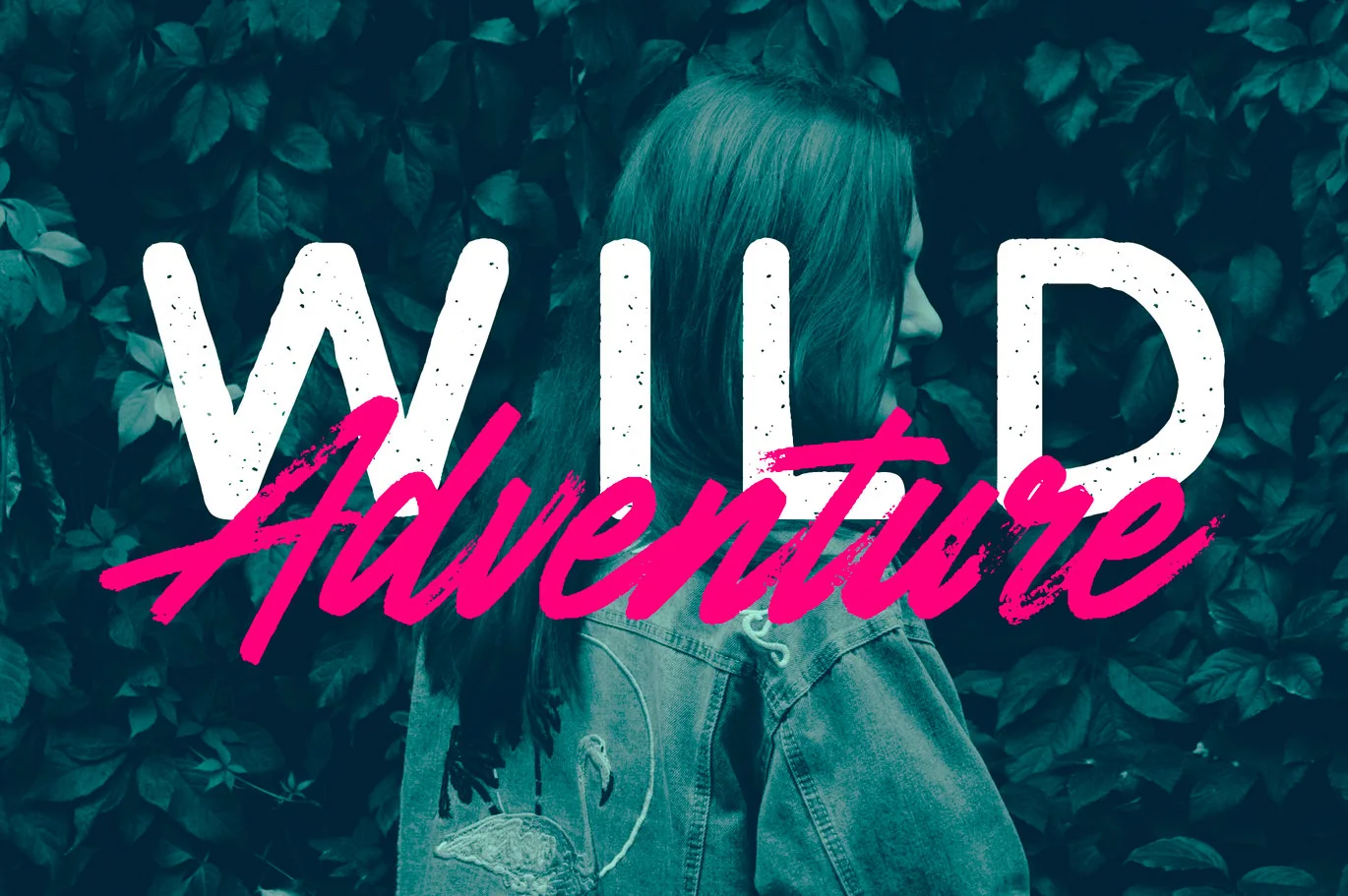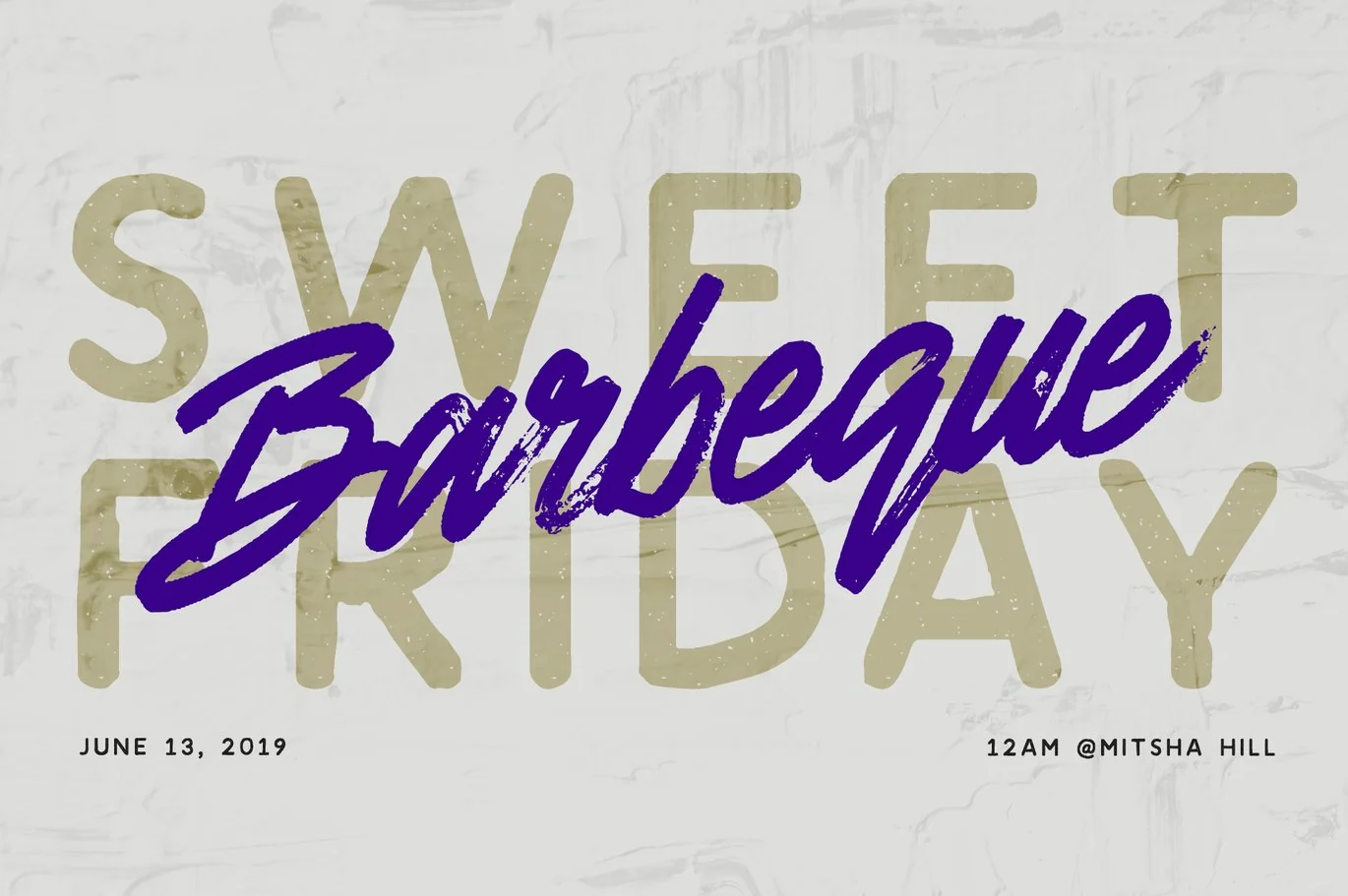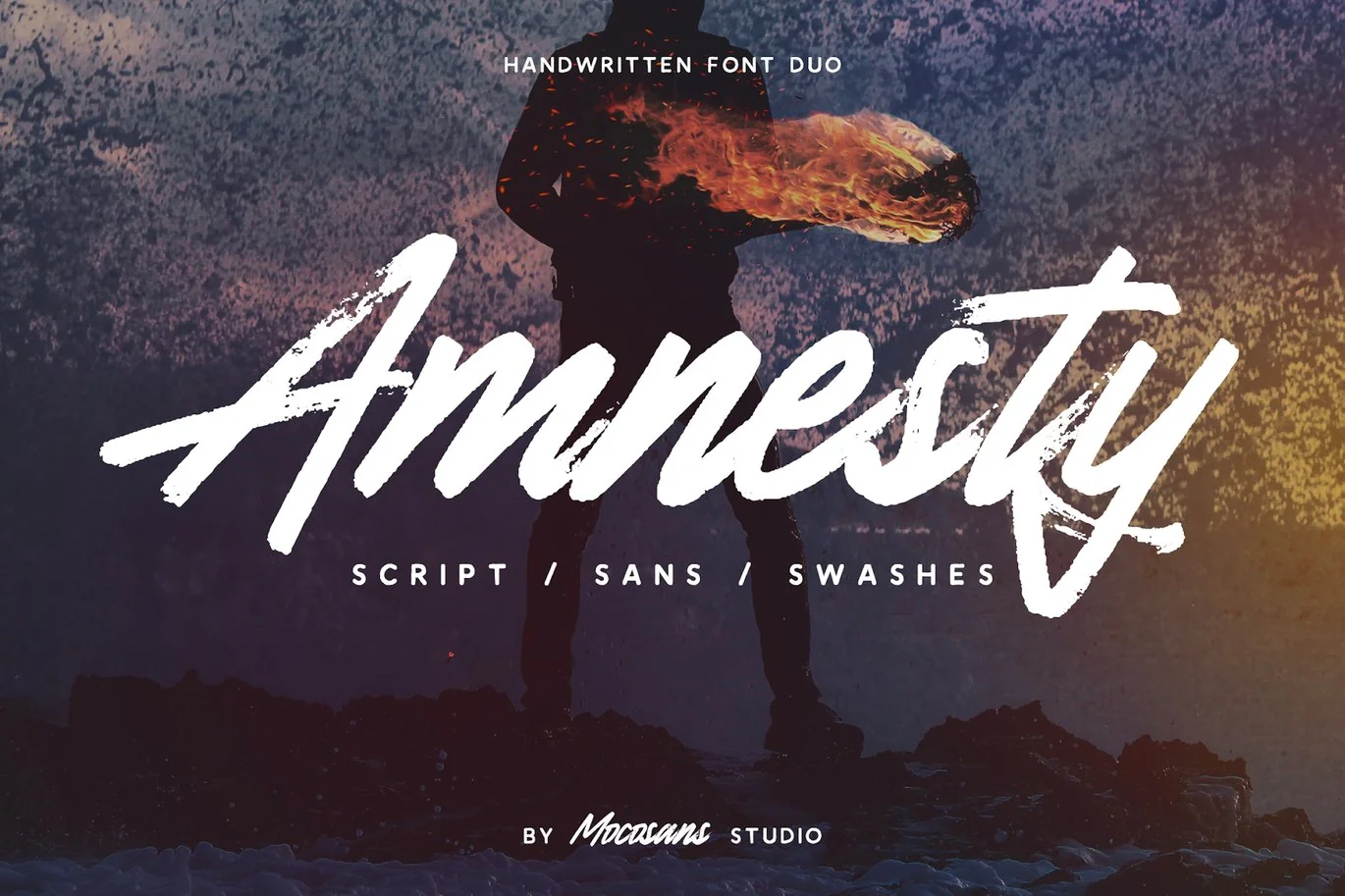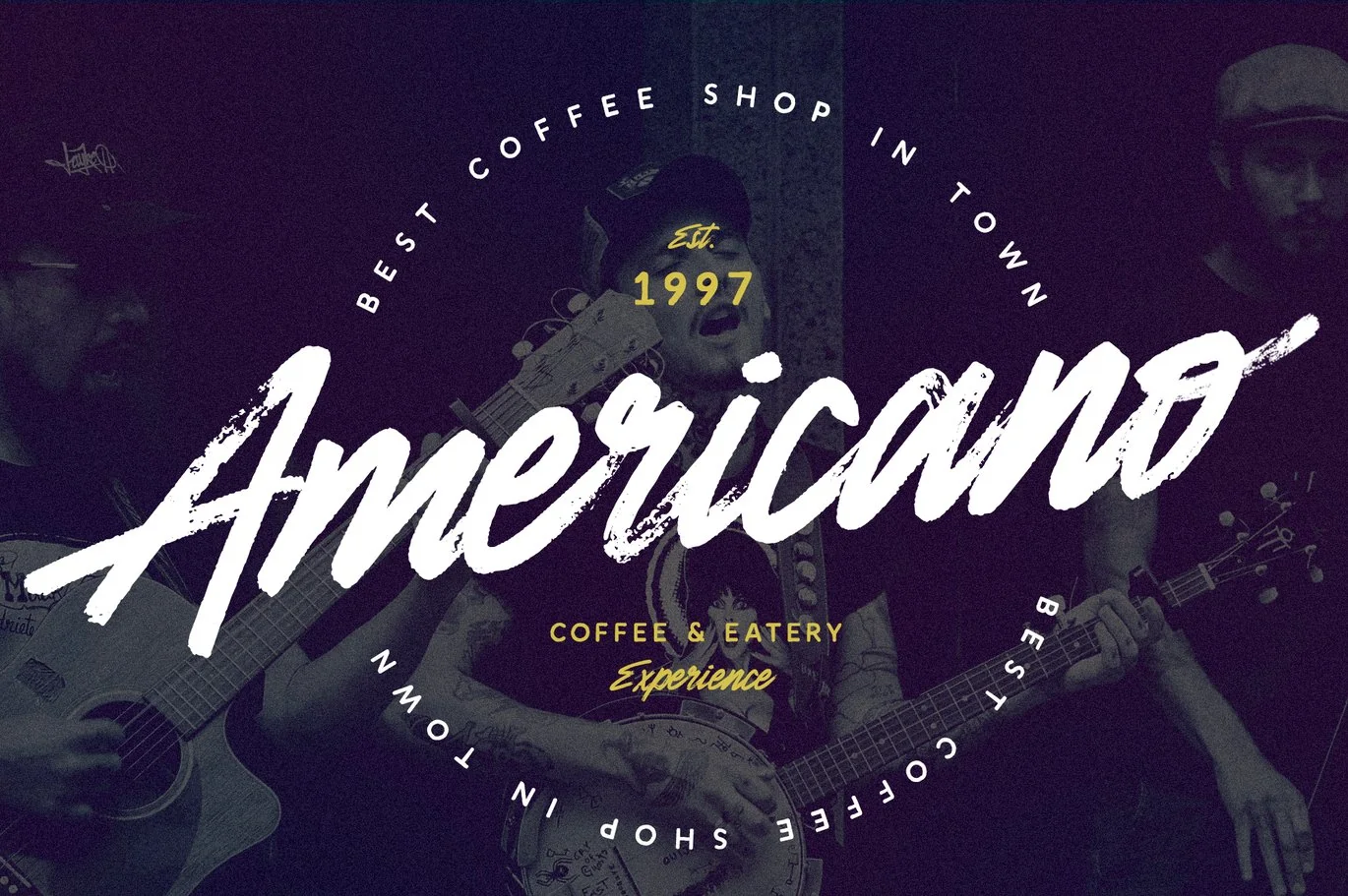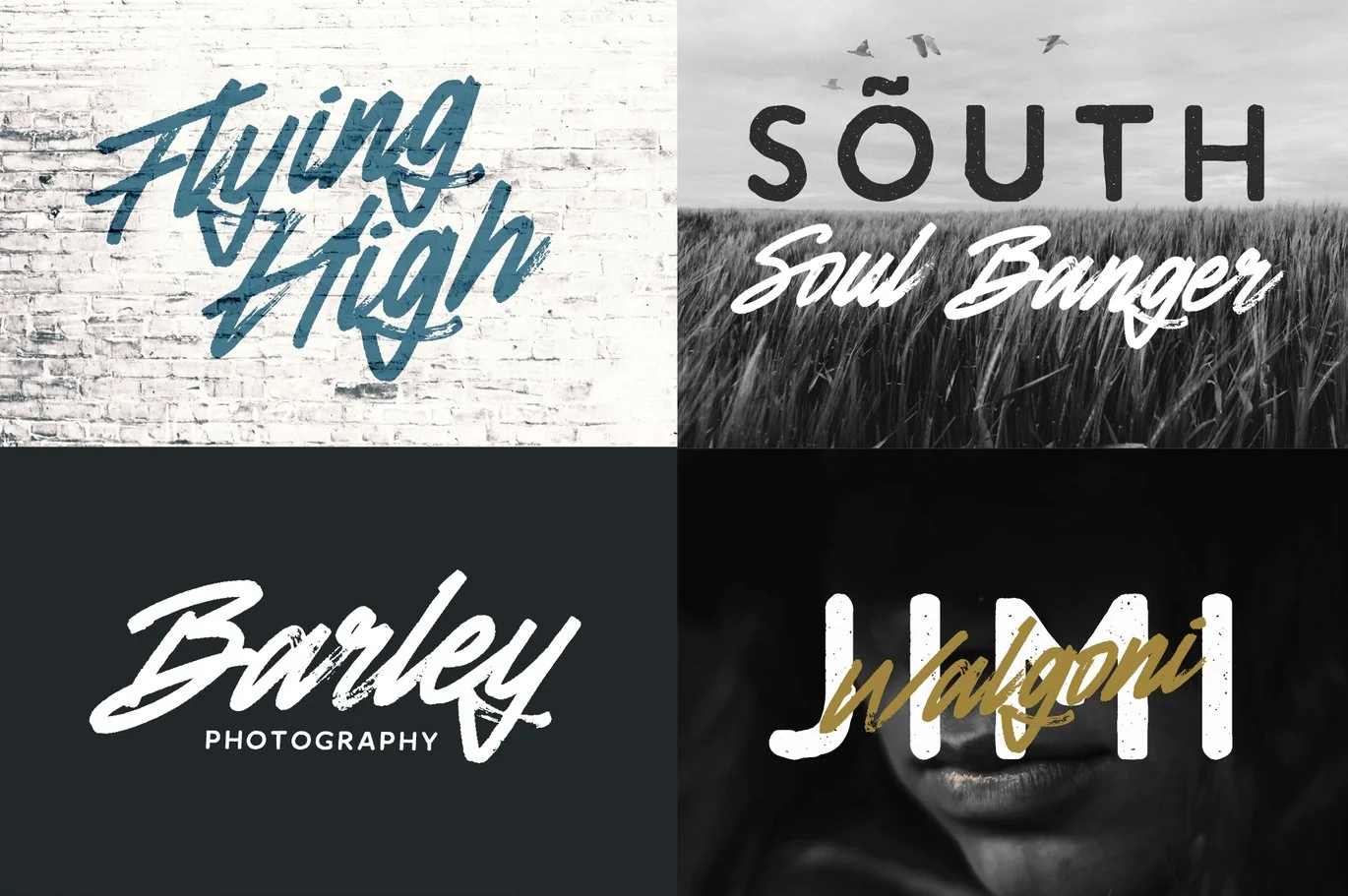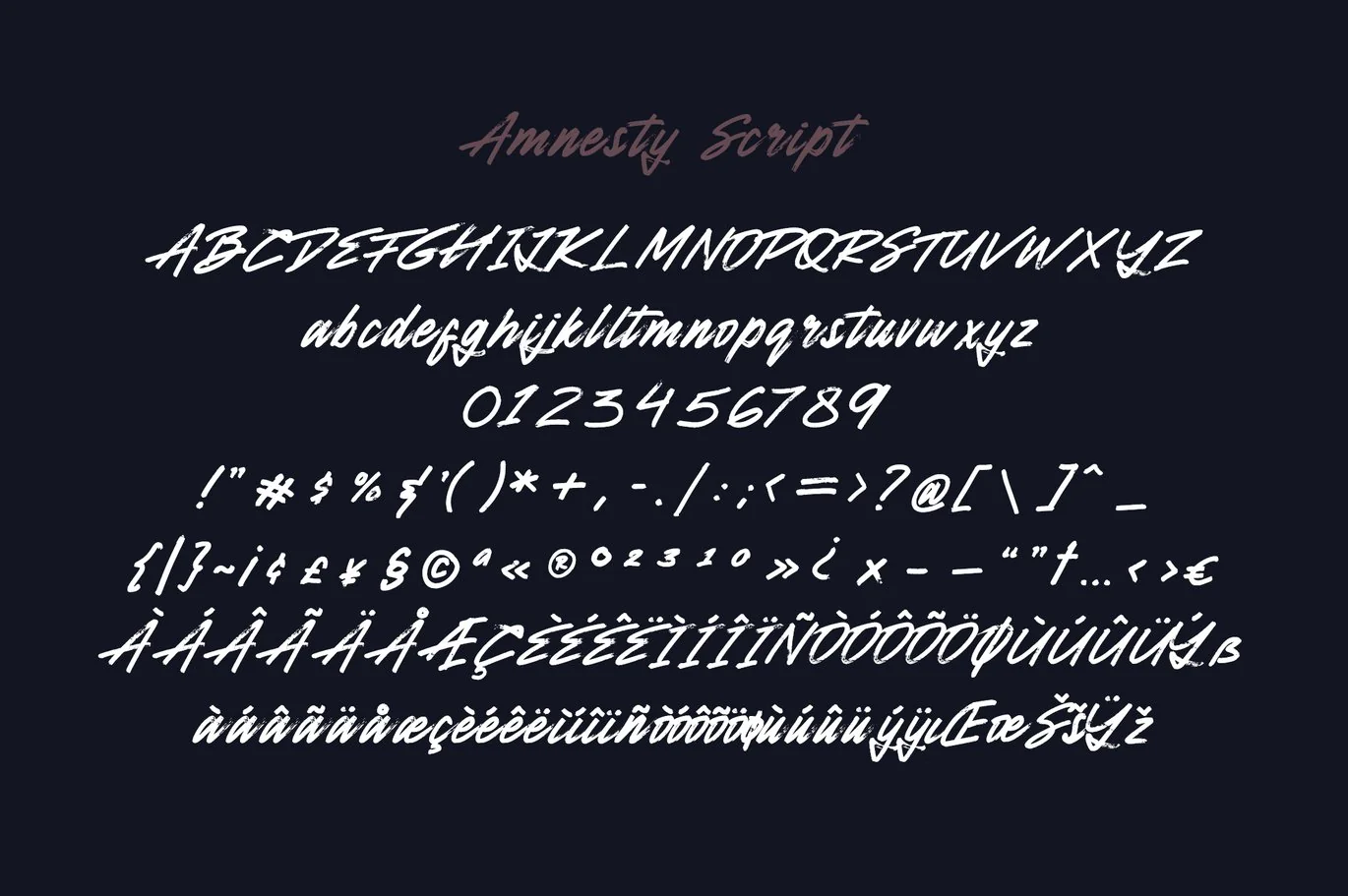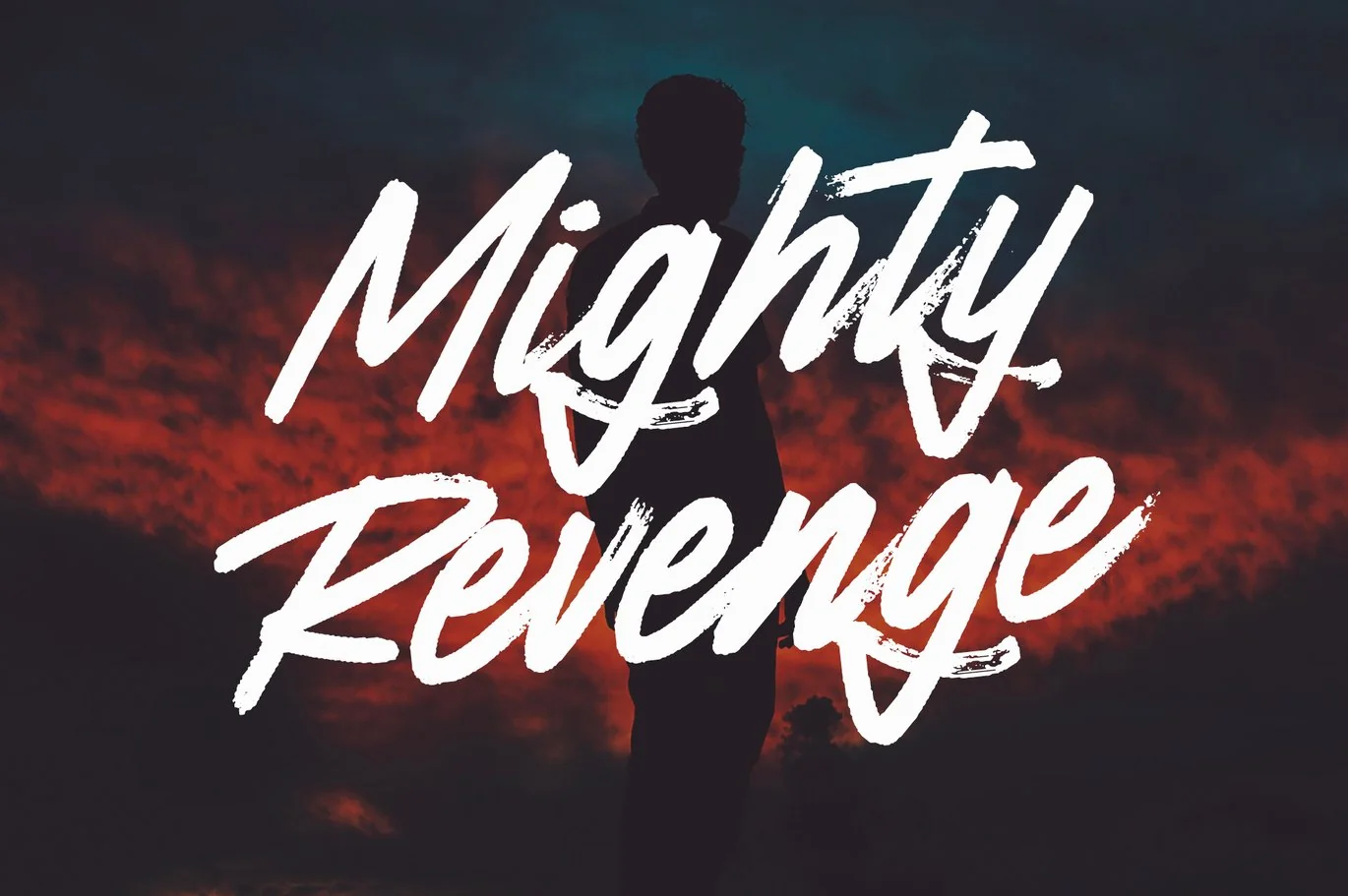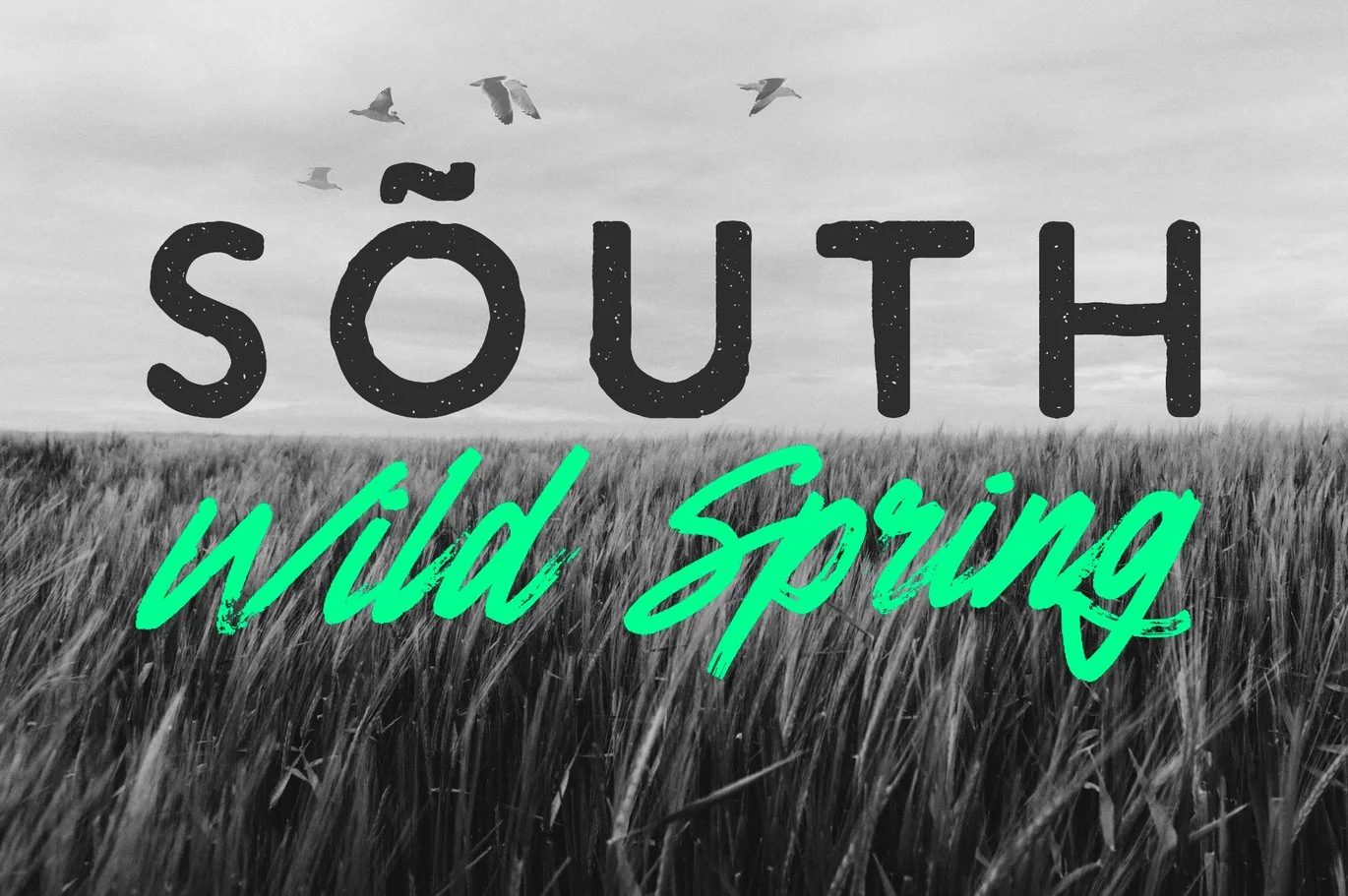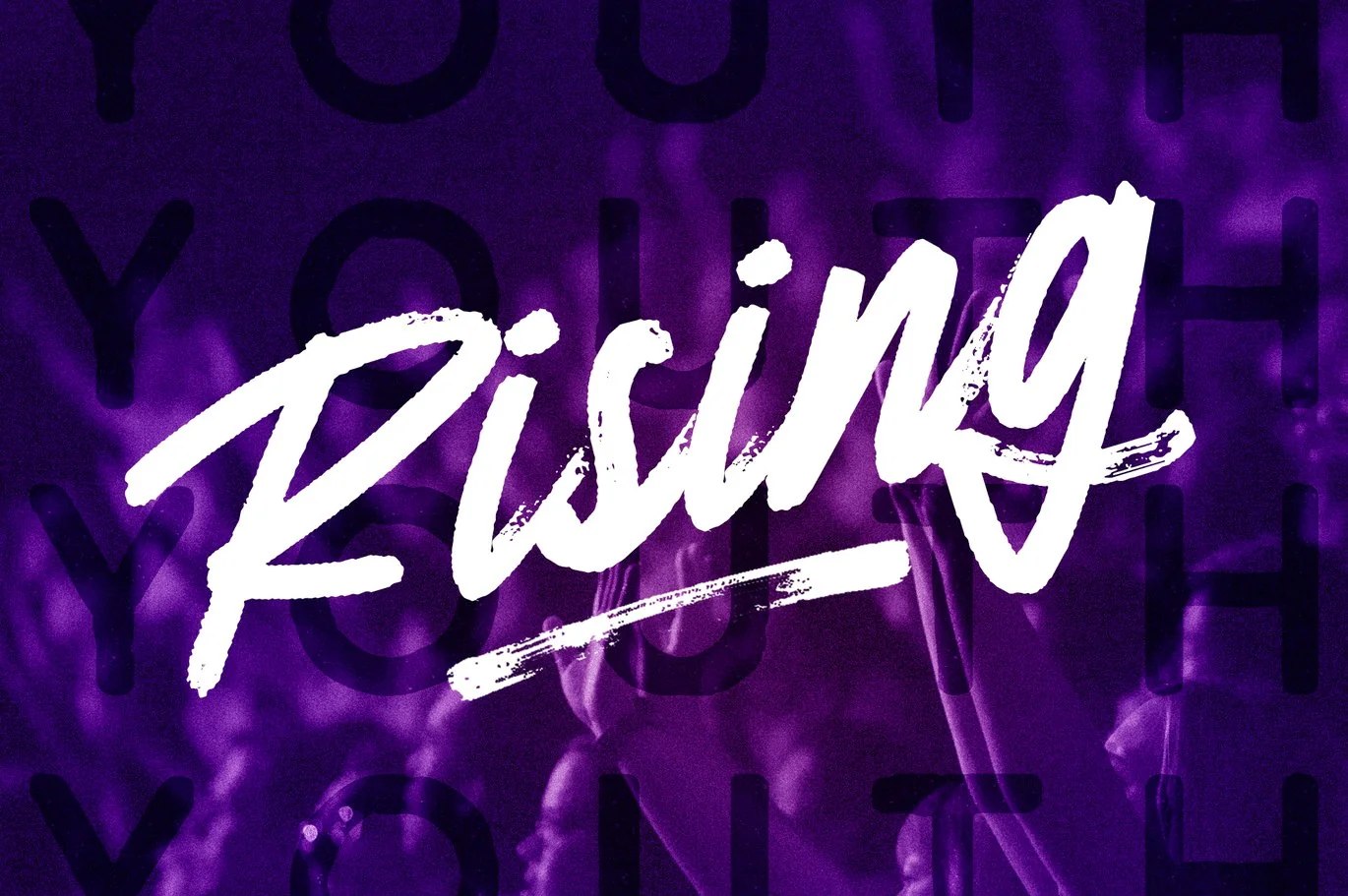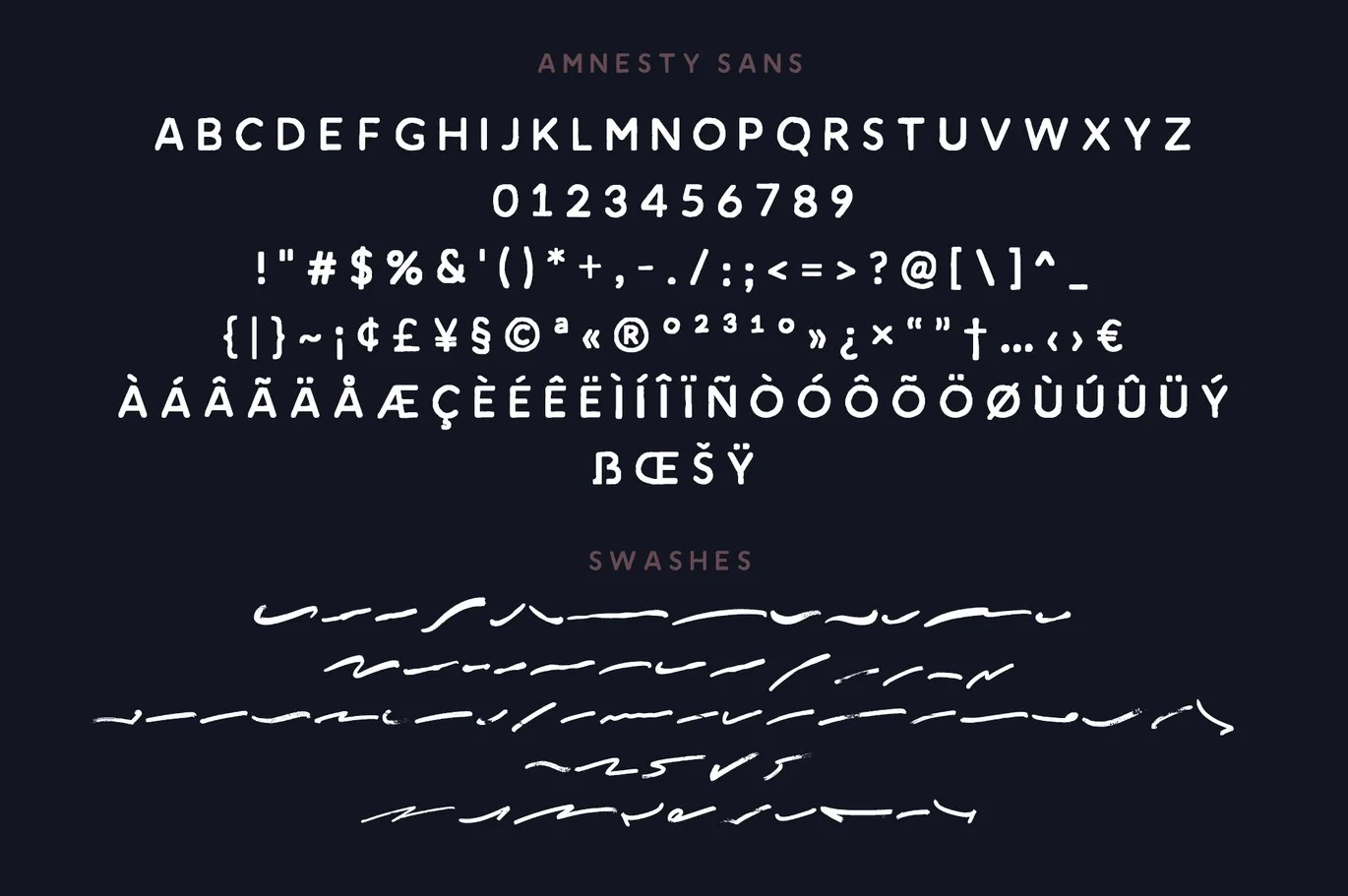
Amnesty – Handwritten Font Duo
Amnesty font is a rustic hand-written font that created to express passion and powerfull spirit. With dinamic looks and modern feel, this font will be perfect for logo, tag-line, big headline and display. You can also try this font for short paragraph, they’ll also look cool and readable.
This font is packed with Amnesty Sans, both regular and stamp style. If you want to use this sans for larger display, then you can try the stamp which has slight natural dots texture.
- Amnesty Swashes (OTF/TTF) – 62 swashes.